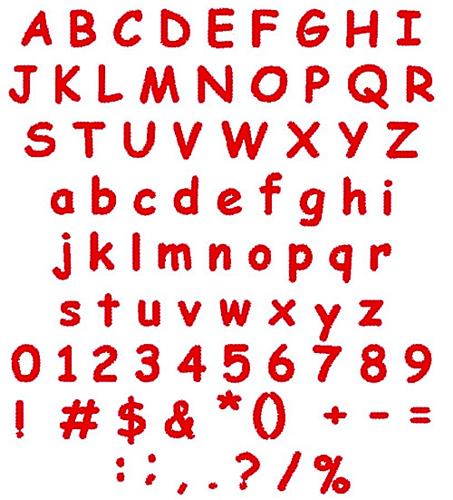
Internet Stitch is happy to present Comic Sans machine embroidery font which has Classic block style machine embroidery font suited for casual projects, perfect for items like t-shirts and banners. The vibrant red fill enhances visibility. Available in ELP formats. included. If you would like to view more embroidery fonts and alphabets please search our embroidery fonts page.